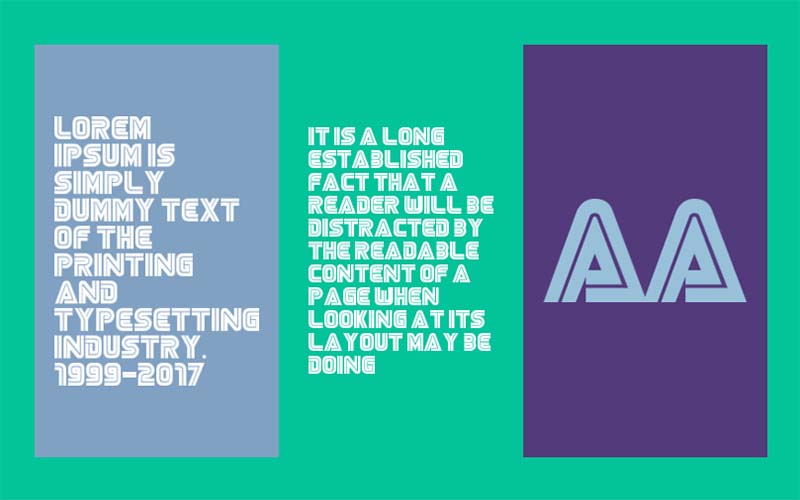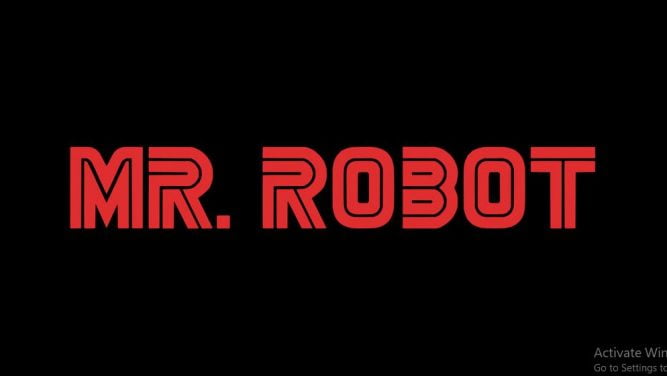
Mr. Robot Font is a free display and sans serif typeface family. This amazing font was designed and released by Justinionn. This font is full of alternate characters so it helps you keep your design fresh.
This fine-quality font has come in only one modern style. It has a dual nature. This typeface can create a geometric 3D effect and is a great choice for creating a modern future for your design.
This display font is a great addition to different purposes such as helping to create eye-catching headlines, posters, print, games, graphic design, t-shirt design, packaging, logos, and many more.
This is an excellent high-tech robot font that can be used for professional design such as robotic cartoon design. If you want to create a modern robotic look, I suggest you look at this font.
The designer of this font paid special attention to conveying a marvelous texture look. Therefore, many designers in the field are using it to satisfy their permanent design confidence.
The most important task for every designer is to choose a perfect typeface for each of his design projects. So if you ever need a font for the gaming industry, this would be a great choice.
Due to its mind-blowing appearance, you can use this serif typeface in different design projects. For example, poster making, brochure layout, banner advertising, logo making, and book covers.